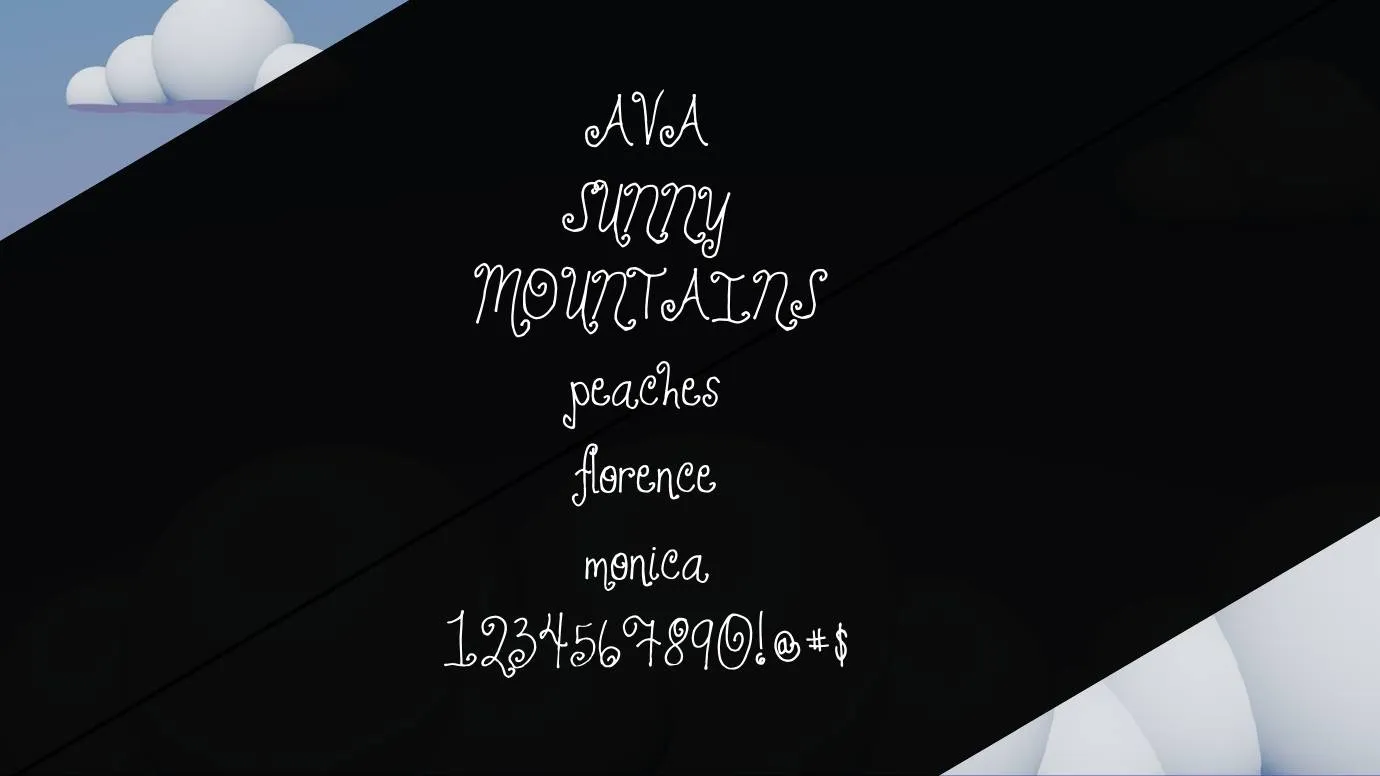
Jheri Curls Font was designed by Ray Larabie in 2001 and is categorized as a comic font. The name is derived from the Jheri curl, a hairstyle popularized in the 1980s. This font features tight letter spacing and tall ascenders, which give it a unique look. It is often used for titles and headlines.
It was created with the intention of being a display font, meaning it is best used for headlines and short blocks of text. The tall ascenders and tight letter spacing give it a unique look that makes it stand out from other fonts. It is also a very versatile font and can be used for a variety of purposes.
If you are looking for a font that is sure to make a statement, it is a perfect choice. It is ideal for headlines, titles, and short blocks of text. With its unique design, it is sure to turn heads and get noticed.
You can utilize it for unique projects such as website headers, unique logos, or even t-shirt designs. Remember to keep the user in mind when utilizing the Jheri Curls style to help your project stand out from the rest. it is the perfect way to add a touch of personality to any project.
Creator of Jheri Curls Font
This texture was designed by Ray Larabie in 2001 and is categorized as a comic font. The name is derived from the Jheri curl, a hairstyle popularized in the 1980s.
This style incorporates several elements, such as capital and lowercase letters, numbers, punctuation, characters, special symbols, glyphs, and language support.